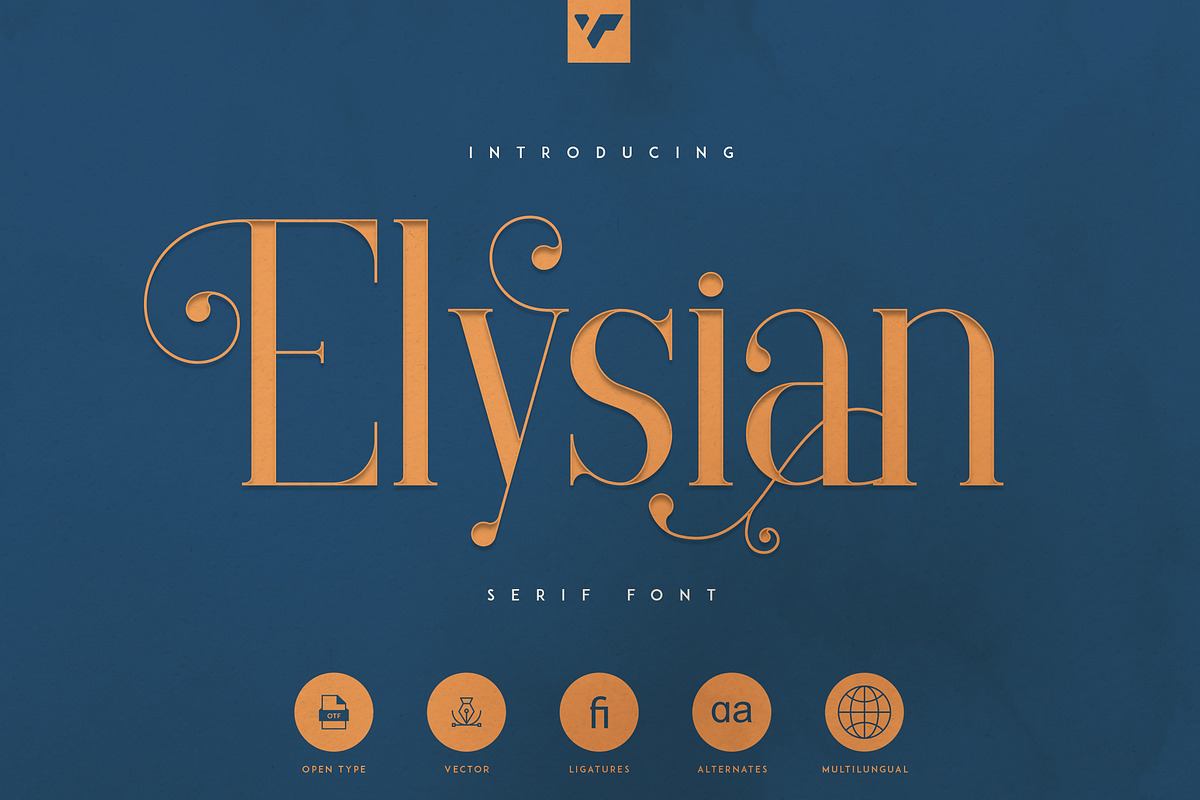
Elysian – Serif Font Free Download is a refined and elegant serif typeface designed to evoke sophistication and class. With its clean lines, sharp serifs, and timeless appeal, Elysian is perfect for luxury branding, editorial layouts, wedding invitations, book covers, and professional design projects.
Its graceful letterforms and balanced proportions make it a versatile choice for both print and digital design, offering readability and style. Whether you're creating high-end branding, upscale invitations, or elegant editorial spreads, Elysian delivers the perfect balance of modern elegance and traditional charm.